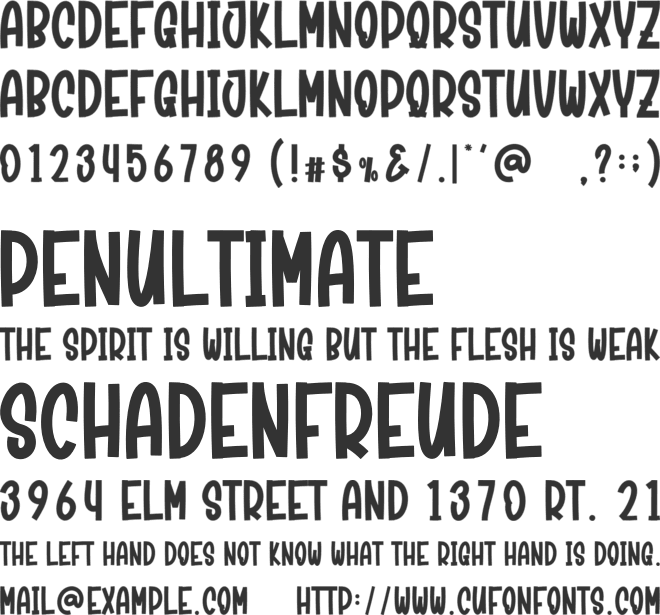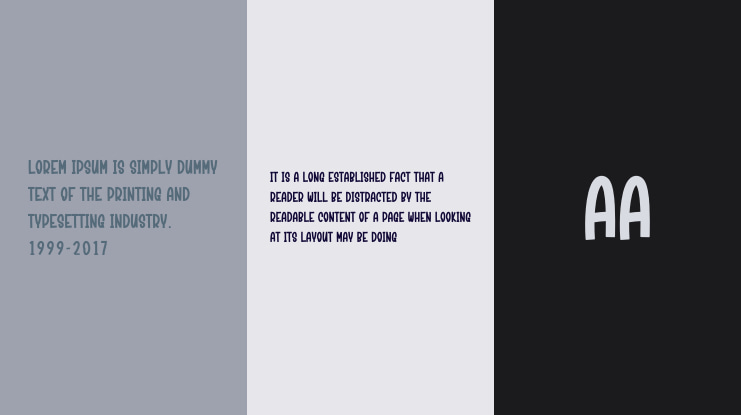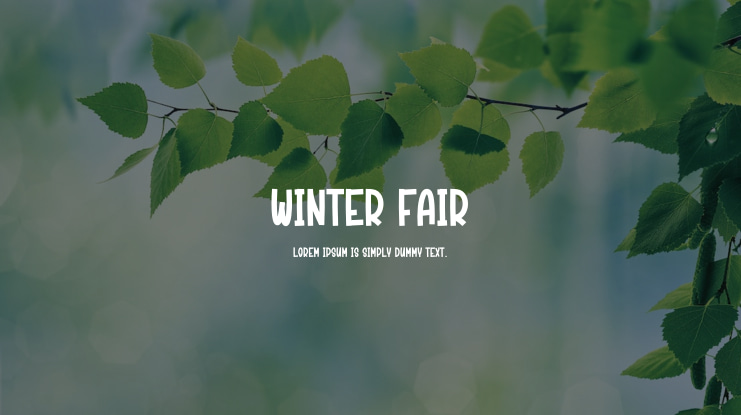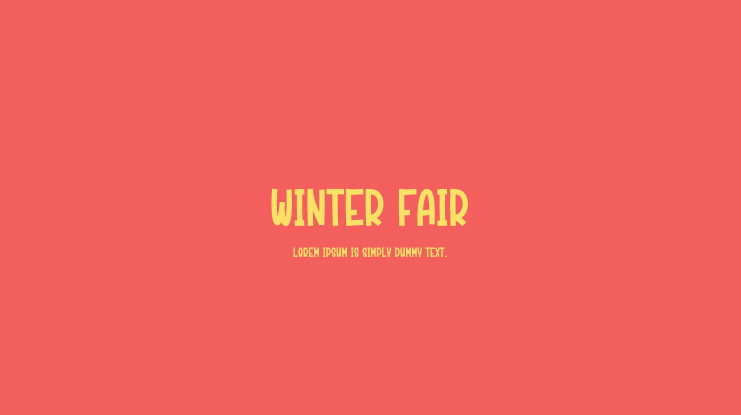
Winter Fair Font
The latest style letters are perfect for wall displays, wedding invitations, social media post logos, advertisements, product packaging, product designs, labels, photography, watermarks, invitations, stationery, and any project that requires tasteful handwriting.